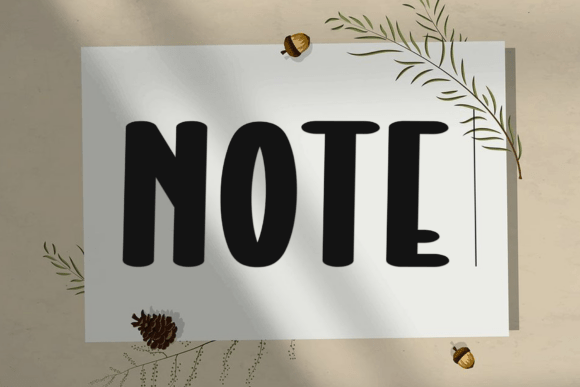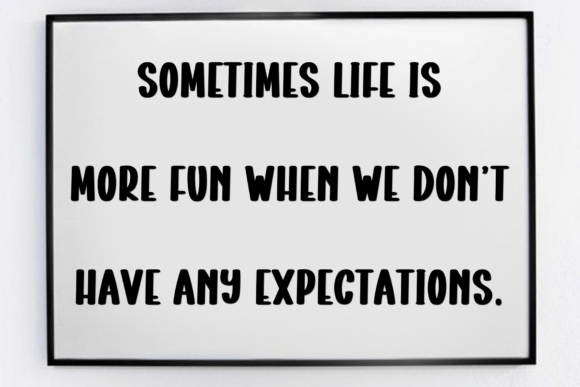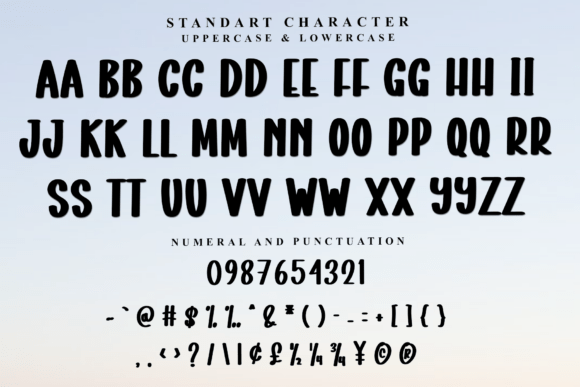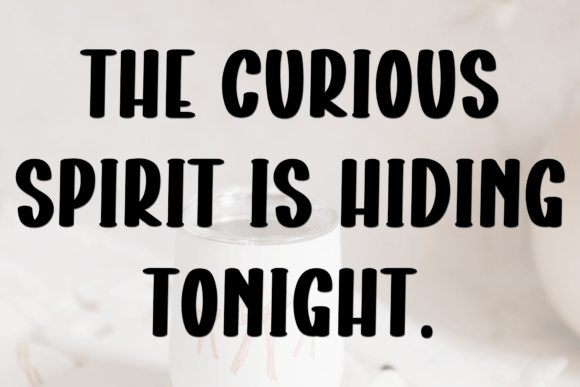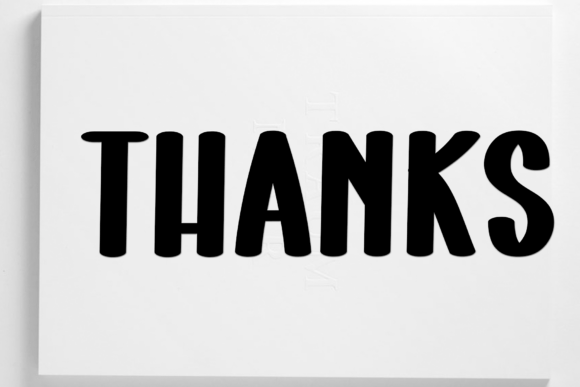
Introduction to Limited Handmade Font
Limited Handmade is a beautiful and eye-catching font designed with a soft, unique touch.
Its distinctive strokes give it a special character, making it meaningful and versatile for future use With various characters, itโs perfect for design projects, crafts, and other creative works.